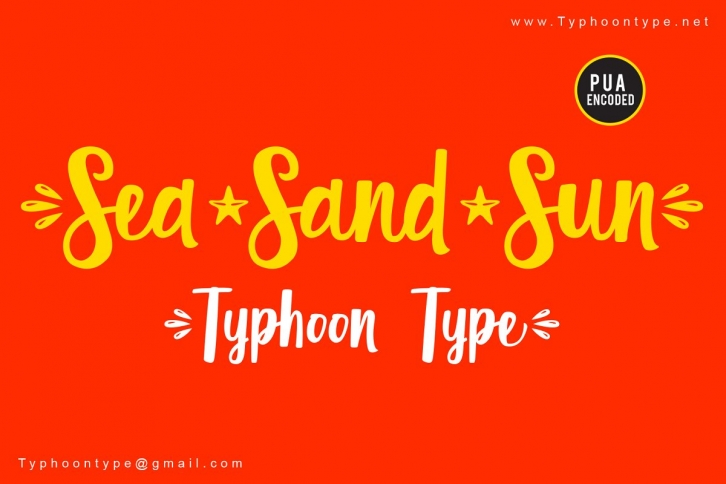
Sea Sand Sun This Font perfect for logos, name tag, advertising, product packaging, clothing, social media & greeting cards.
- Type ( before word to get beginning swash and Type ) after word to get the ending swash.
- Type  (greater sign) to get "Star Fish"
Example : (SeaSandSun)